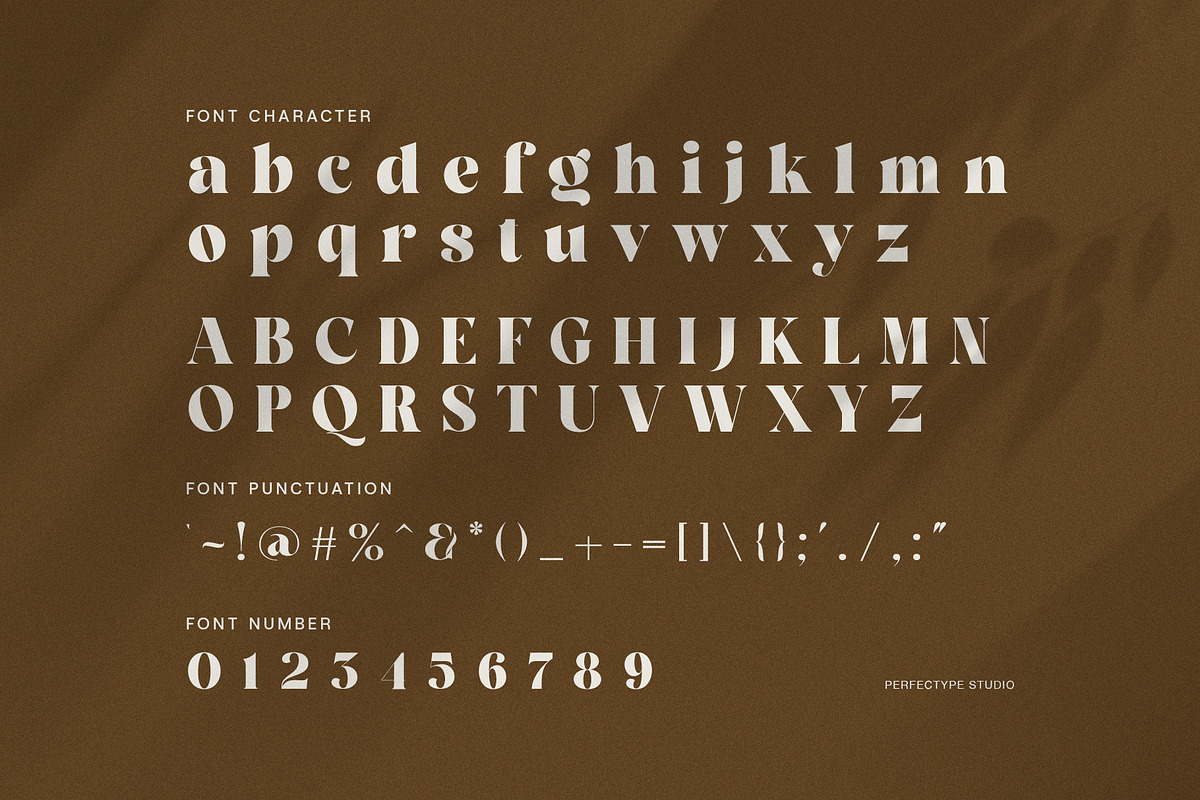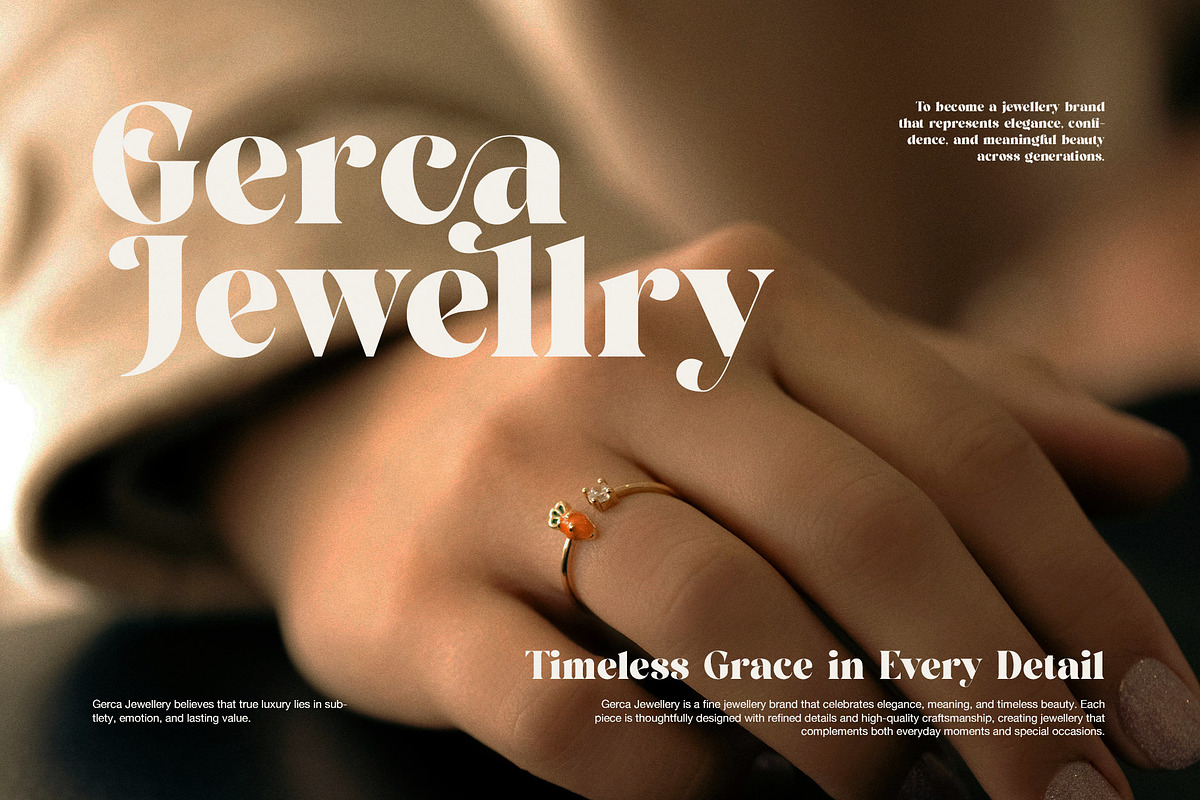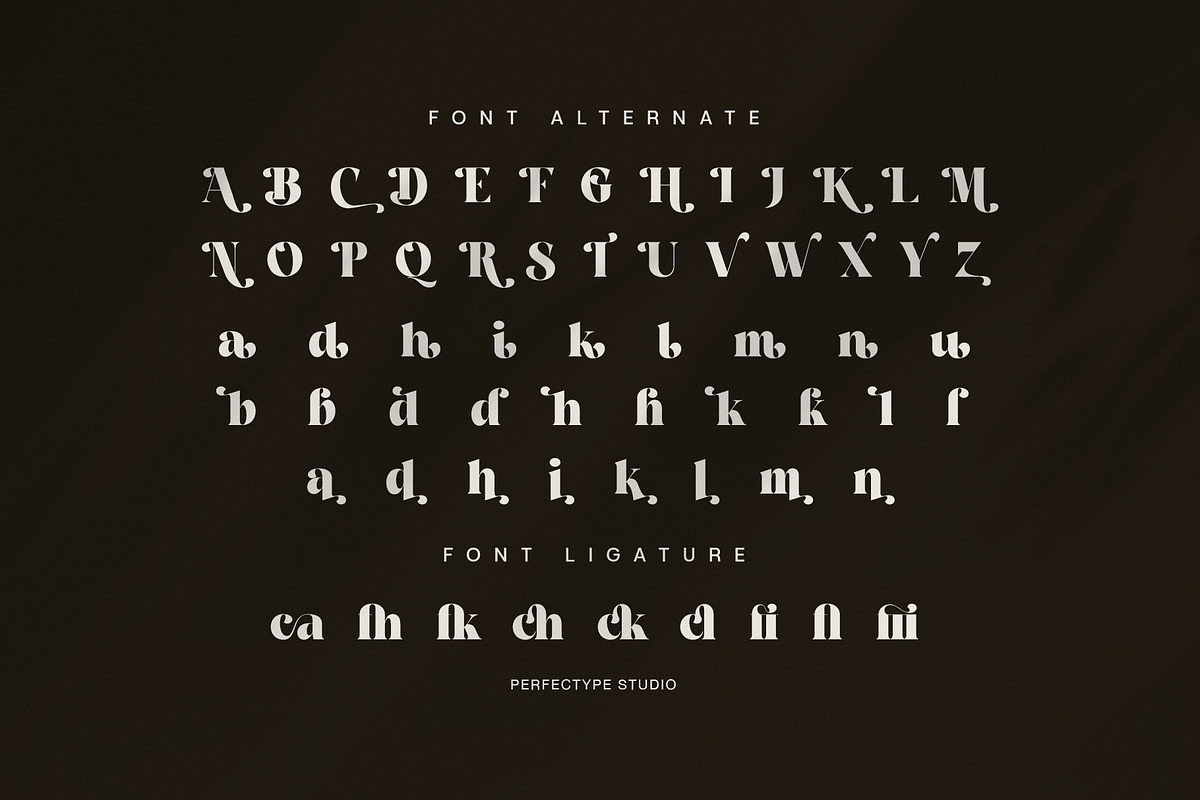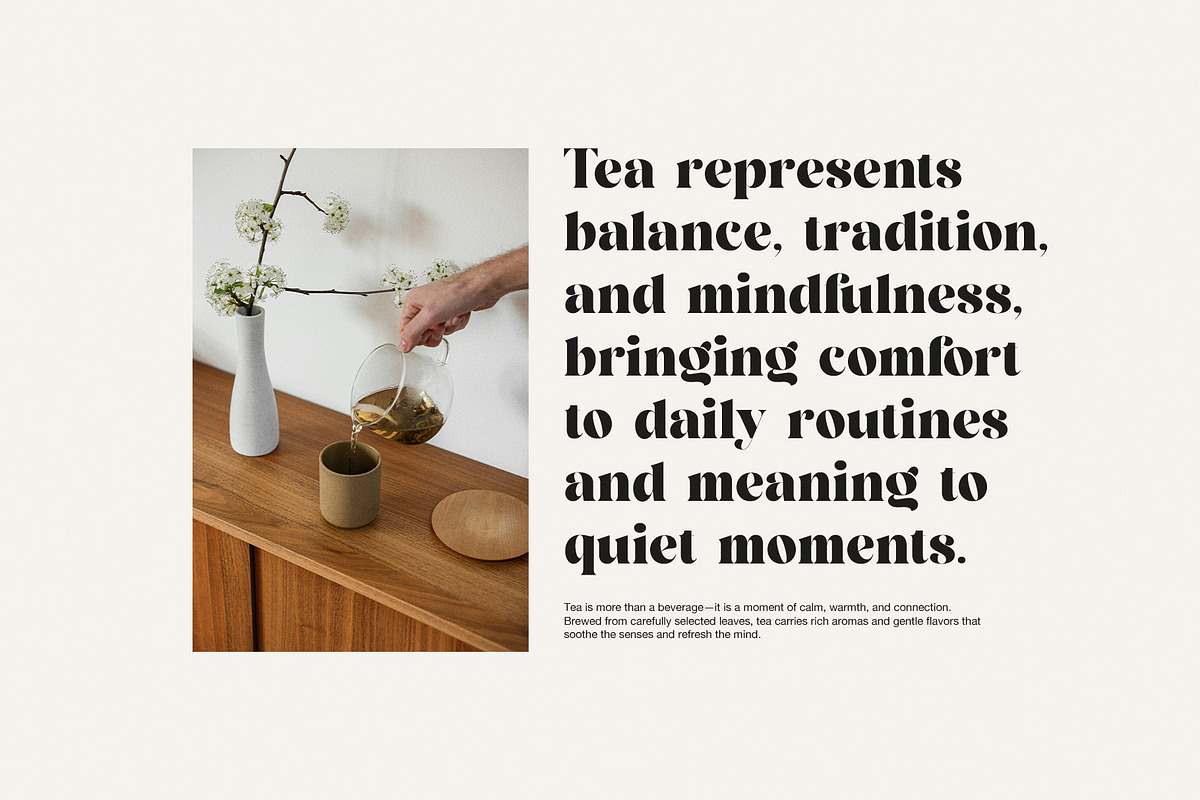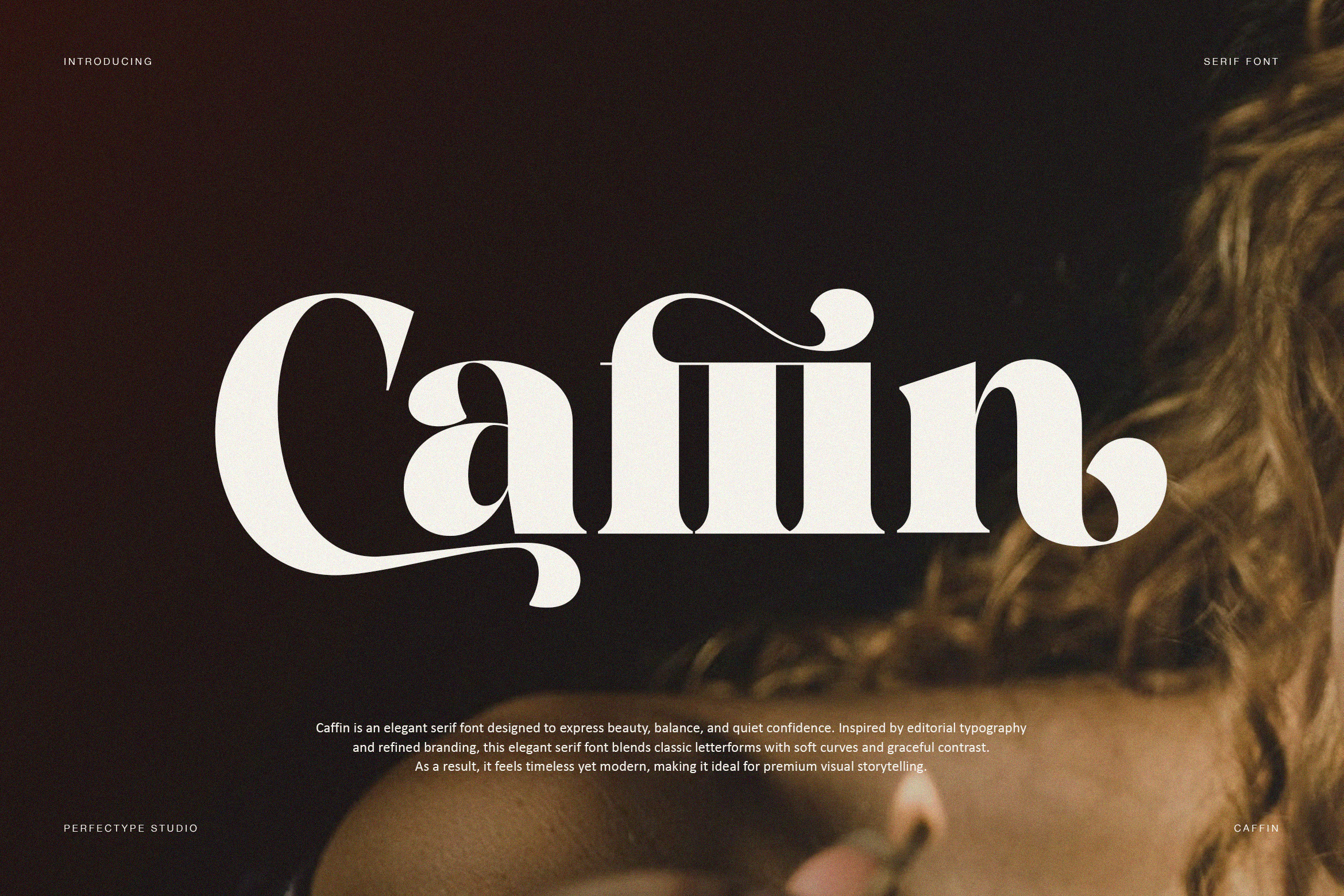
Caffin Elegant Serif Font
Elegant Serif Font with Timeless Character
Caffin is an elegant serif font designed to express beauty, balance, and quiet confidence. Inspired by editorial typography and refined branding, this elegant serif font blends classic letterforms with soft curves and graceful contrast. As a result, it feels timeless yet modern, making it ideal for premium visual storytelling.
From the first glance, Caffin delivers a sense of calm sophistication. Each letter is carefully shaped to create harmony between thick and thin strokes. Moreover, the gentle terminals and refined details add warmth without losing clarity. Because of this balance, the font works beautifully in both large headlines and supporting text.
Designed for Modern Luxury Design
Caffin is created for designers who value elegance with meaning. Whether you are working on fashion branding, jewelry packaging, interior design layouts, or editorial spreads, this elegant serif font enhances the overall visual experience. In addition, its clean structure ensures excellent readability while maintaining a high-end aesthetic.
This font includes uppercase and lowercase characters, numerals, punctuation, alternates, and ligatures. Therefore, you can create unique typographic compositions with ease. The alternates add personality, while the ligatures improve flow and visual rhythm.
Perfect for Many Creative Uses
Caffin adapts effortlessly to many design projects, such as:
Fashion brands and lookbooks
Luxury logos and visual identities
Jewelry, beauty, and skincare packaging
Editorial layouts and magazines
Lifestyle websites and social media graphics
Because it supports both elegance and versatility, this elegant serif font becomes a reliable choice for long-term branding projects.